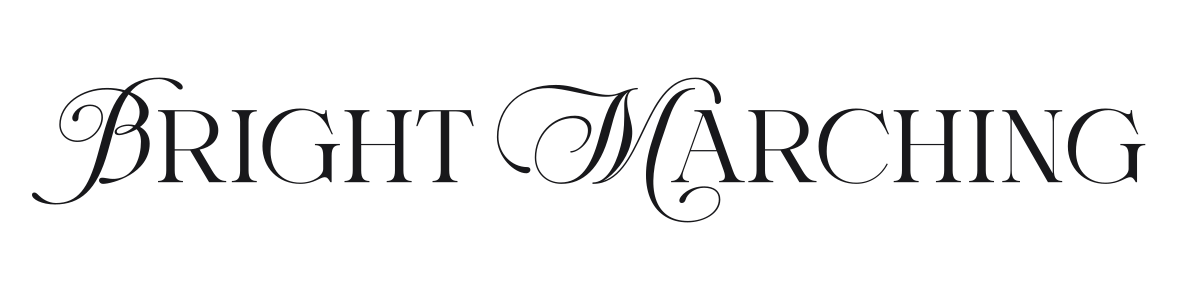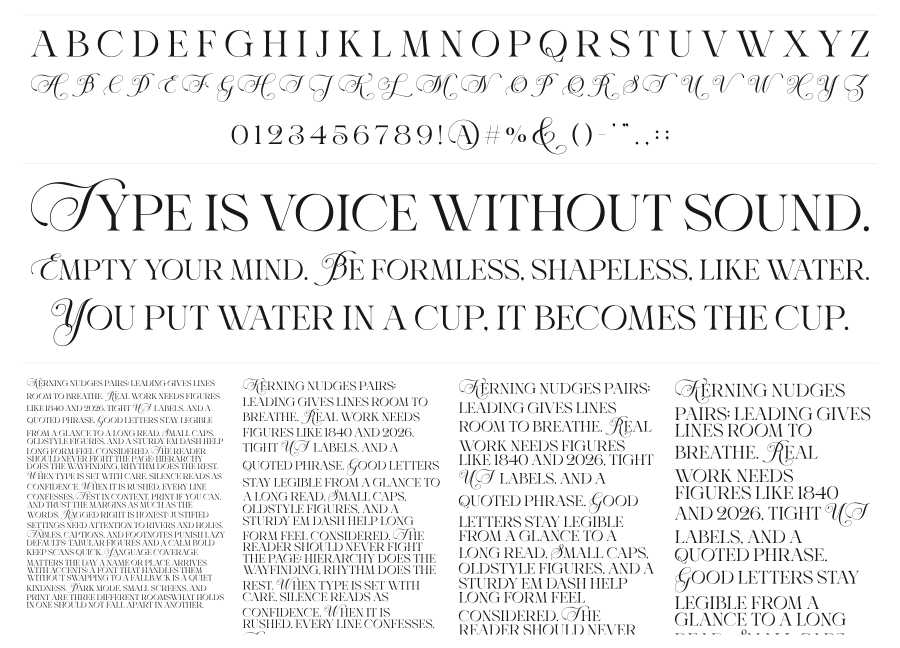
Bright Marching
Bright Marching is a high-contrast modern serif drawn in the Didone tradition, with extreme variation between thick stems and near-invisible hairline strokes. The wide character spacing and airy proportions give it a cool, editorial presence reminiscent of upscale fashion mastheads. It thrives at large sizes where the hairline details can breathe.